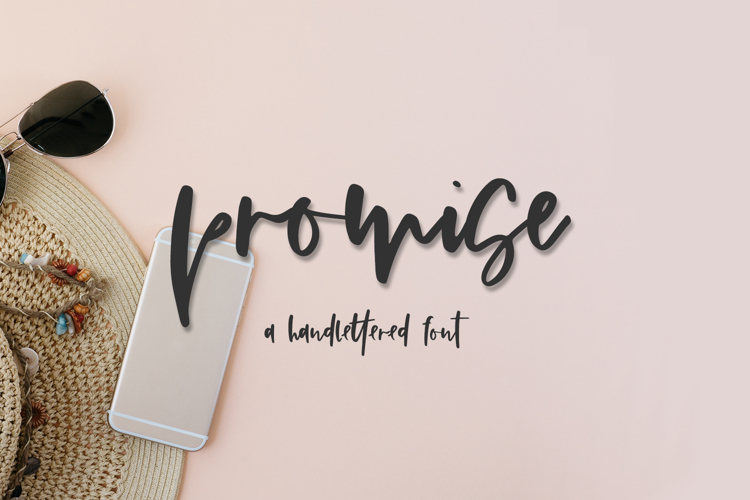
Promise Script
Introducing Promise Script, a chunky, messy signature script. This script includes a full set of lowercase alternates to enhance the handwritten appeal, as well as some common double letter ligatures.
Promise Script is best for:
- logos + branding for gender-neutral applications
- website design + website accents - think design blogs, travel blogs, fashion blogs, & more
Promise Script includes:
- 26 alternates
- 13 ligatures - bb, cc, dd, ee, ff, gg, ll, mm, nn, oo, rr, ss, tt